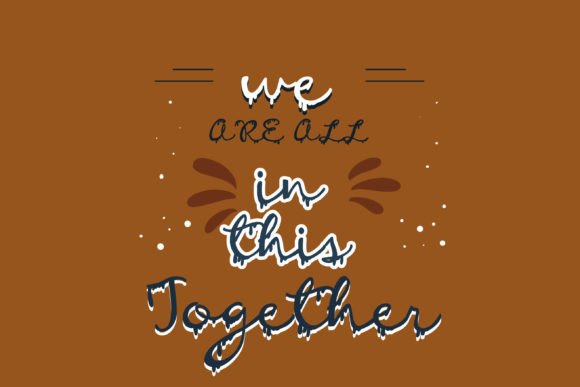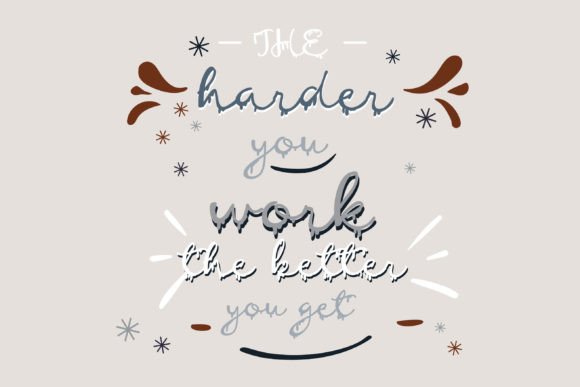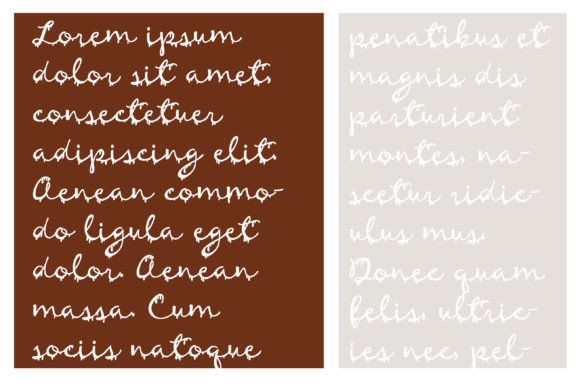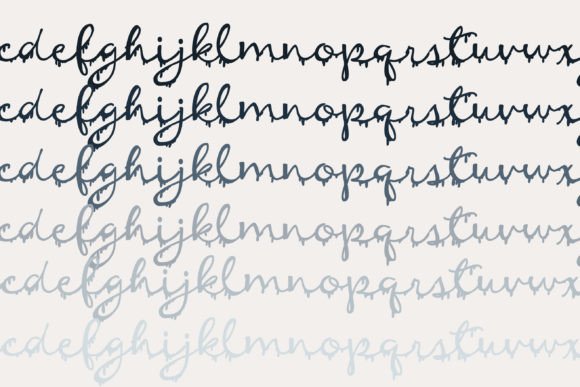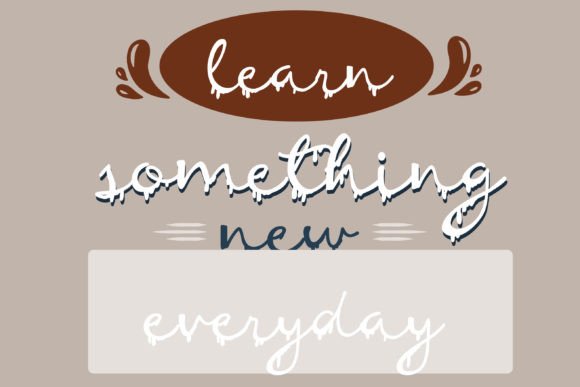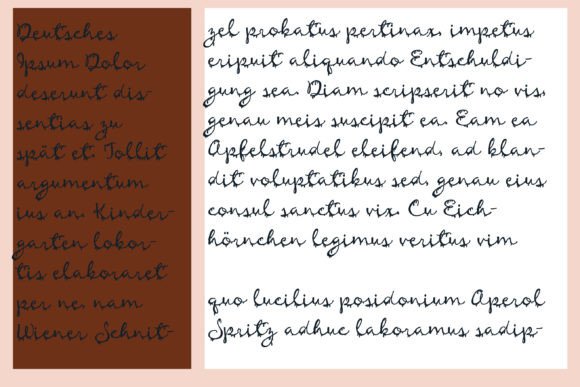
Introducing Boise Boo Font: A Drippy, Oozy, Creepy Cursive Script
Are you tired of using the same old fonts for your designs? Look no further! Boise Boo Font is a unique, hand-crafted font that is sure to add a touch of personality to your projects. This drippy, oozy, creepy, cursive script is perfect for designers and crafters who want to create something that stands out from the crowd.
A hand-crafted font is a font that is designed to look like it was written by hand. It is often used for invitations, greeting cards, and other items. Handwritten fonts can be either formal or informal, and they can be used for a variety of purposes. They are perfect for adding a personal touch to your designs and making them more relatable.
Characteristics of Boise Boo Font
Boise Boo Font is a one-of-a-kind, hand-crafted font that is sure to make your designs pop. Its drippy, oozy, and creepy characteristics make it perfect for creating spooky and eerie designs. The font is a cursive script, which gives it a fluid and natural look. It is perfect for use in a variety of projects, including:
- Invitations: Whether you’re planning a spooky party or a formal event, Boise Boo Font is sure to set the tone.
- Greeting cards: Add a personal touch to your greeting cards with this unique and eye-catching font.
- Signs and posters: Boise Boo Font is perfect for creating eye-catching signs and posters that will grab attention.
Benefits of Using Boise Boo Font
There are many benefits to using Boise Boo Font in your designs. Here are just a few:
- Unique and eye-catching: Boise Boo Font is a one-of-a-kind font that is sure to make your designs stand out.
- Versatile: The font can be used for a variety of purposes, from formal to informal projects.
- High-quality: The font is high-quality and comes with a range of characters, including letters, numbers, and punctuation marks.
Tips for Using Boise Boo Font
Here are a few tips for using Boise Boo Font in your designs:
- Use it sparingly: While Boise Boo Font is eye-catching, it can be overwhelming if used too much. Use it sparingly to add emphasis to your designs.
- Pair it with other fonts: Boise Boo Font pairs well with other fonts, such as sans serif fonts. Experiment with different pairings to find the one that works best for your design.
- Experiment with colors: Boise Boo Font looks great in a range of colors, from bright and bold to muted and subtle. Experiment with different colors to find the one that works best for your design.
Boise Boo Font is a unique and eye-catching font that is sure to add a touch of personality to your designs. Its drippy, oozy, and creepy characteristics make it perfect for creating spooky and eerie designs. With its versatility, ease of use, and high-quality characters, Boise Boo Font is a must-have for designers and crafters. So why wait? Download Boise Boo Font today and start creating designs that stand out from the crowd!
- What is Boise Boo Font? Boise Boo Font is a hand-crafted font that is designed to look like it was written by hand. It is a drippy, oozy, creepy, cursive script.
- What is Boise Boo Font used for? Boise Boo Font can be used for a variety of purposes, including invitations, greeting cards, signs, and posters.